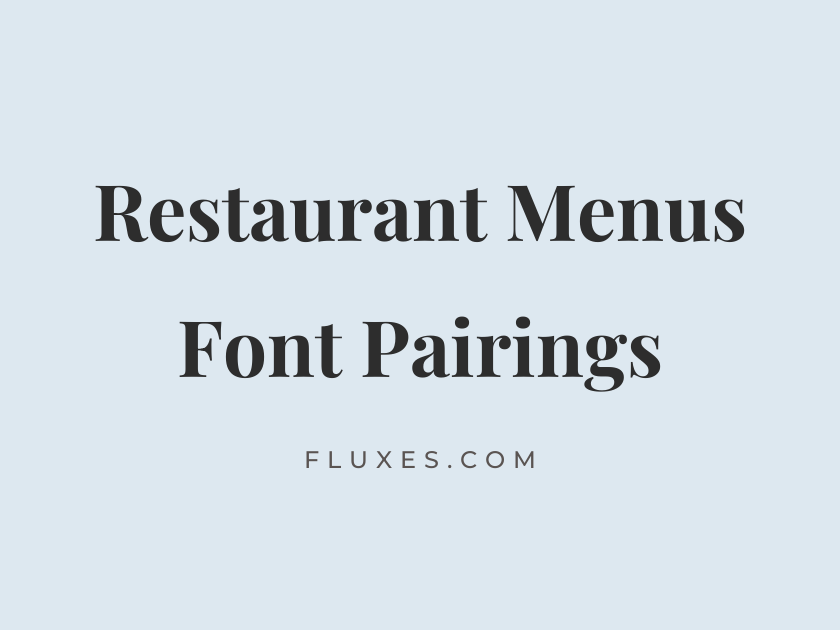
37 Best Font Pairings for Restaurant Menus
Menu typography has to do two jobs at once: set the mood of the room before a single dish is described, and stay legible under low light, wine stains, and a hungry glance. The strongest font pairings for restaurant menus balance a characterful display face for names and headers with a plain, highly readable text face for descriptions and prices. What follows is a wide-ranging set of Google Fonts pairings organized loosely by cuisine and atmosphere, so you can match the type to the kind of table you are setting.
1. Playfair Display + EB Garamond
Tasting Menu
Seared scallops, brown butter, hazelnut, and finished with a citrus gastrique.
High-contrast strokes on Playfair Display read as instantly upscale, while EB Garamond’s calm, old-style letterforms keep long dish descriptions comfortable to read by candlelight. This is a dependable starting point for fine dining and tasting-menu formats.
2. Cormorant Garamond + Lato
Le Petit Bistro
Coq au vin, root vegetables, and a glass of house Burgundy.
Cormorant Garamond brings the narrow elegance of French display type, and Lato’s humanist warmth keeps the body copy from feeling stiff. The pair suits a neighborhood bistro that wants polish without pretension.
3. Abril Fatface + Vollkorn
Trattoria Rossi
Handmade tagliatelle tossed with slow-cooked Sunday sauce.
Abril Fatface has the bold, ink-heavy presence of vintage Italian signage, and Vollkorn’s sturdy serifs echo that same old-world warmth at a readable size. Together they feel handcrafted rather than corporate, ideal for a family-run Italian kitchen.
4. Oswald + Merriweather
Prime Cut Steakhouse
Dry-aged ribeye, roasted bone marrow, and charred scallion butter.
Oswald’s condensed, confident caps work like a butcher’s stamp for section headers, and Merriweather’s sturdy serifs carry weight without slowing the reader down. The combination suits a steakhouse menu that wants to feel serious and substantial.
5. Bungee + Karla
Hopyard Brewhouse
Hazy IPA, citrus notes, brewed in small batches on site.
Bungee’s blocky, sign-painted feel matches the loud personality of a brewpub, and Karla stays understated so tasting notes remain the focus. This pairing fits craft beer menus and taproom chalkboards equally well.
6. Alfa Slab One + Nunito Sans
Cantina El Fuego
Slow-roasted carnitas, pickled onion, and salsa verde.
The heavy slab serifs of Alfa Slab One carry the same punch as hand-lettered taqueria signage, and Nunito Sans’s rounded, friendly letterforms keep the ingredient lists approachable. A natural match for Mexican and Tex-Mex menus.
7. Amatic SC + Work Sans
Corner Coffee Co.
Single-origin pour-over, oat milk available, roasted weekly.
Amatic SC has the hand-drawn thinness of a chalkboard menu, so it pairs best with a clean grotesque like Work Sans that grounds the page. This combination is a go-to for coffee shop boards and casual cafe menus.
8. Sacramento + Josefin Sans
Sweet Magnolia Bakery
Buttermilk scones, lemon glaze, baked fresh every morning.
Sacramento’s looping script feels like a bakery’s own signature, and Josefin Sans’s geometric restraint keeps the ingredient lines crisp underneath it. Reserve this pairing for pastry cases and dessert-focused menus where charm matters more than density of text.
9. Kaushan Script + PT Sans
Harbor Seafood Shack
Grilled catch of the day, served with charred lemon and herb oil.
Kaushan Script has a loose, brush-drawn energy that suits a casual seafood shack rather than a formal dining room, and PT Sans keeps prices and sides easy to scan. It works well for boardwalk and coastal menu concepts.
10. Righteous + Rubik
Blue Moon Diner
Two eggs any style, hash browns, and toast for under ten dollars.
Righteous carries the rounded, retro-futurist look of mid-century diner signage, and Rubik’s slightly rounded terminals keep the body text friendly at small sizes. This pairing fits all-day breakfast spots and classic American diners.
11. Fraunces + Karla
Field & Table
Roasted beets, whipped goat cheese, and toasted seeds from the garden.
Fraunces has a soft, slightly wonky serif structure that feels handmade and organic, which suits a farm-to-table concept, while Karla’s clean sans keeps sourcing notes legible. Both fonts share a modern, unfussy mood without competing for attention.
12. Cinzel + EB Garamond
The Vintner's Table
A curated pour list featuring small production vineyards.
Cinzel’s capital-only, chiseled letterforms recall classical engraving, giving a wine list a sense of heritage, and EB Garamond’s understated serifs keep tasting notes from feeling ornate. Good for wine bars and cellar menus that lean formal.
Match the emotional register of the type to the food itself; a script that feels charming on a bakery menu can feel out of place on a steakhouse wine list. When in doubt, pick the more restrained option for the body copy so it stays legible in low restaurant lighting.
Test the pairing at the actual print size you plan to use, since some display fonts that look striking at 60 points can lose personality or legibility once shrunk down to a dessert menu insert.